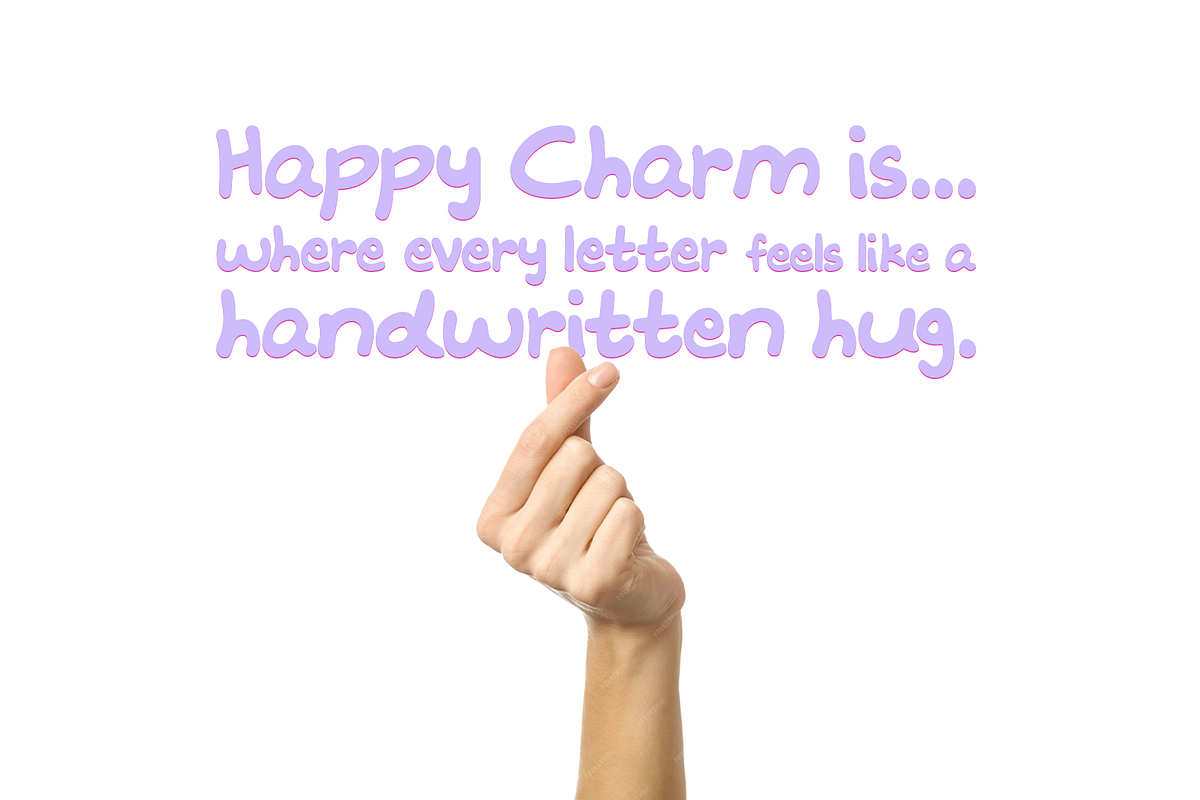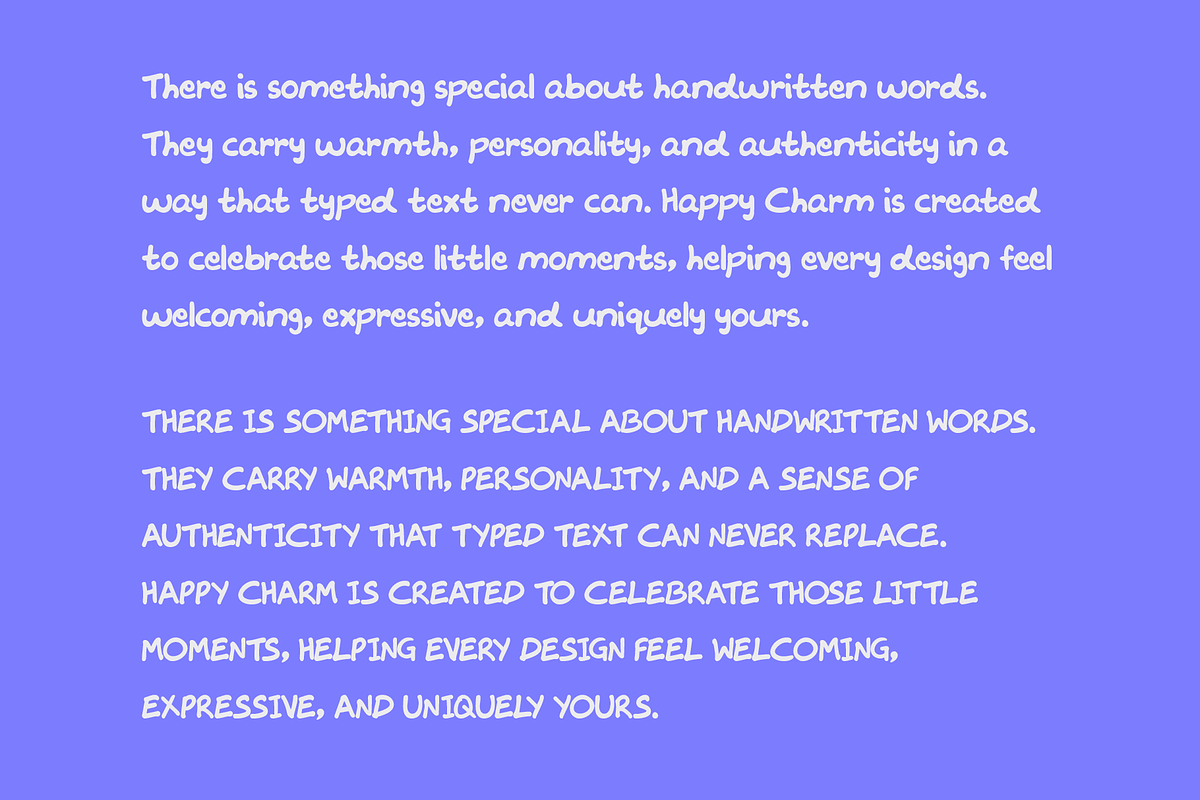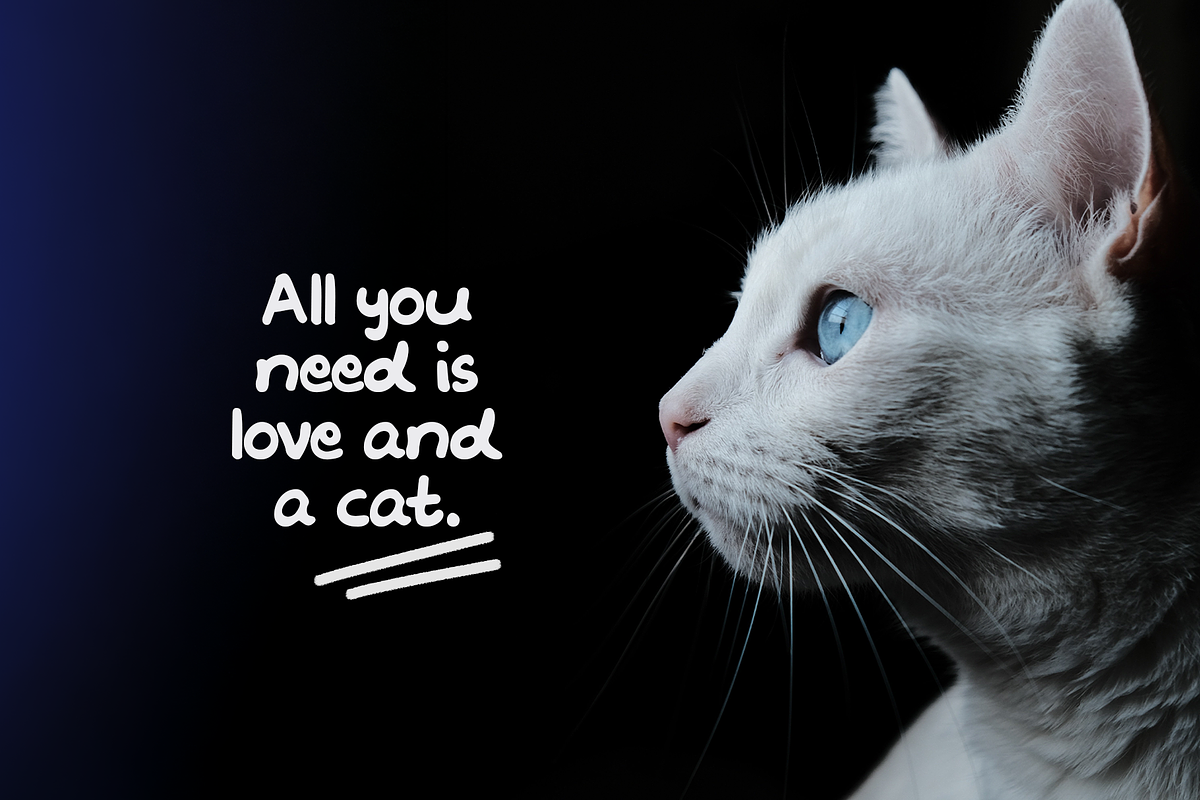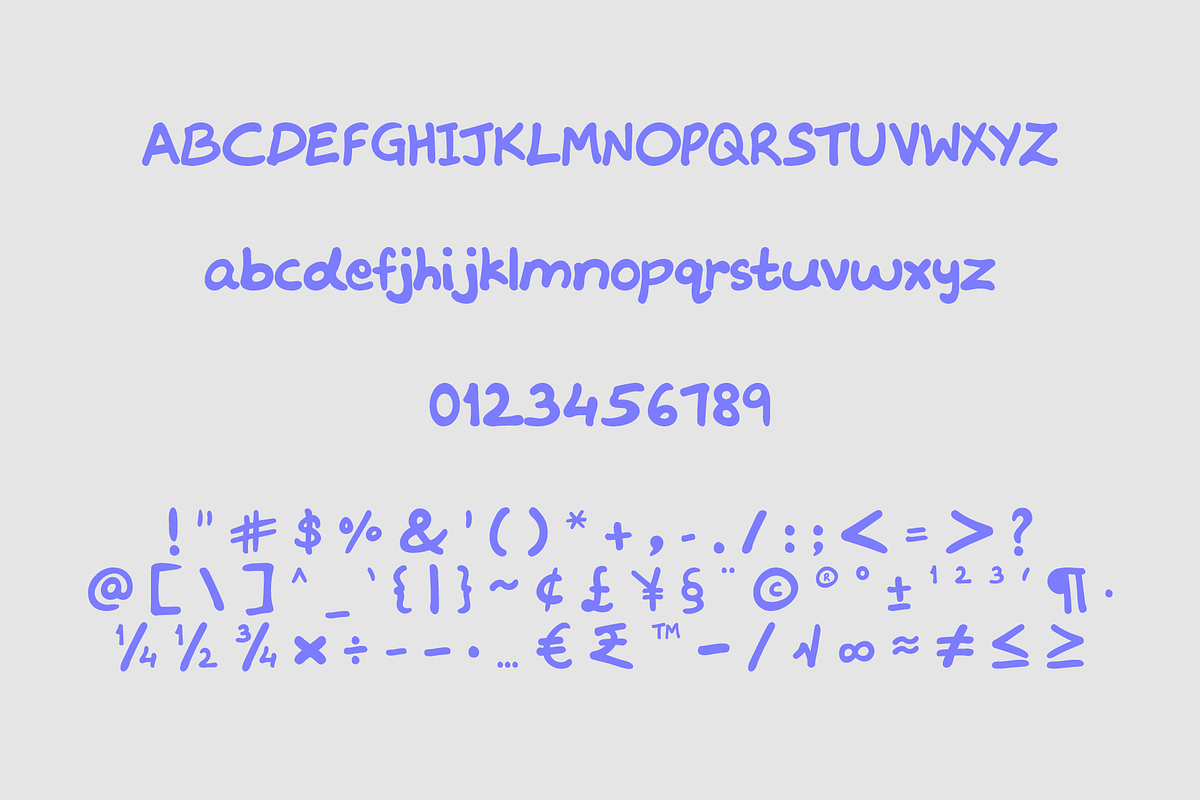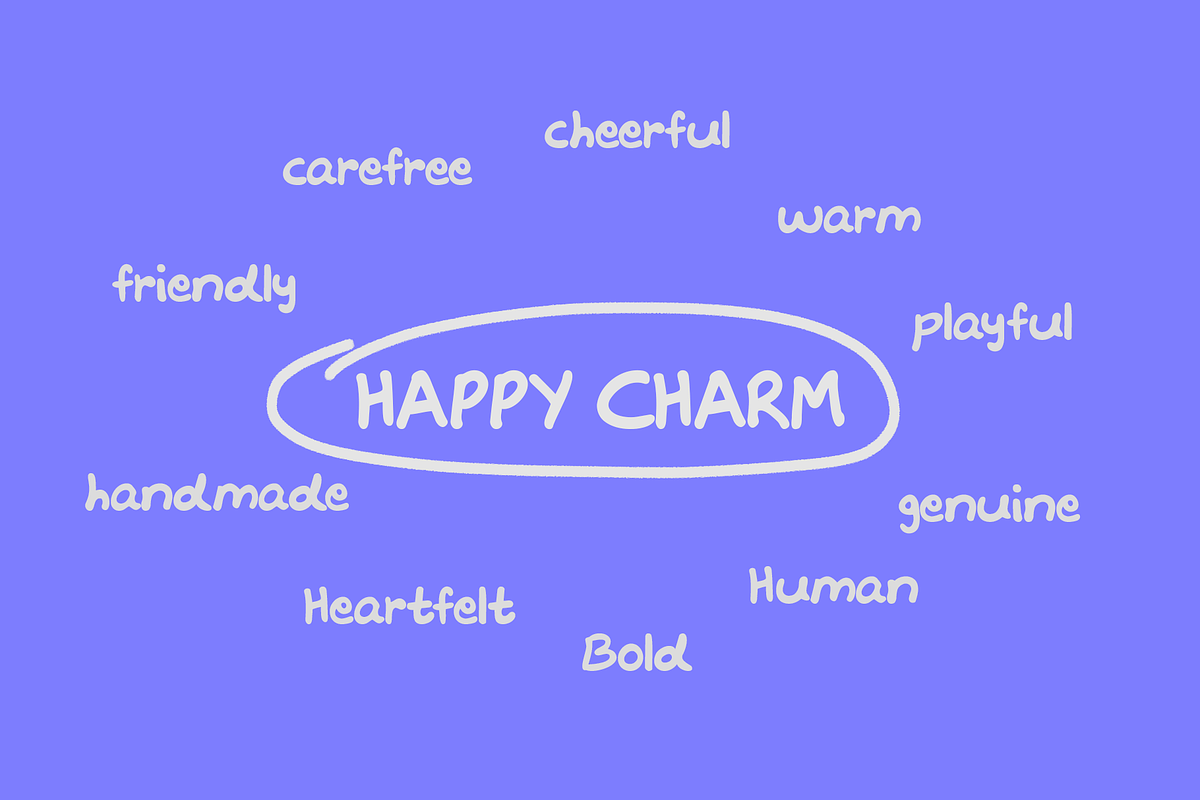
Happy Charm Handwritten Font
Happy Charm - Handwritten Sans Serif Font
Bring warmth and personality to your designs with Happy Charm, a playful handwritten font that feels natural, authentic, and easy to read. Whether you're creating social media graphics, branding, invitations, product packaging, or digital planners, Happy Charm adds a friendly handcrafted touch to every project.
Designed with a real handwritten feel, each letter captures the charm of handwritten notes while remaining versatile enough for both personal and commercial projects.
Font Features (Please see the slide for all the included glyphs)
• Uppercase letters • Lowercase letters • Numbers • Punctuation • Symbols